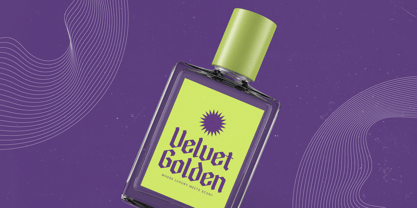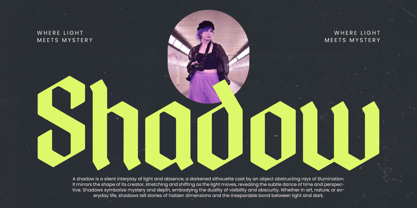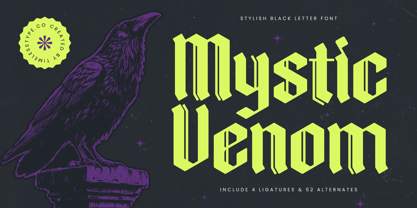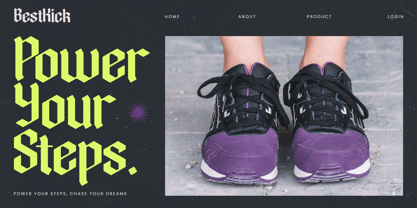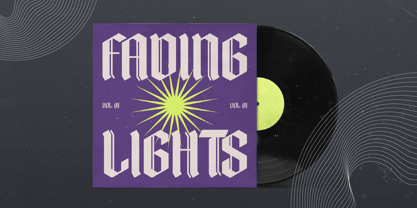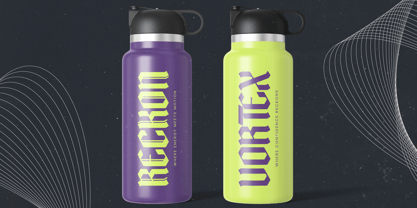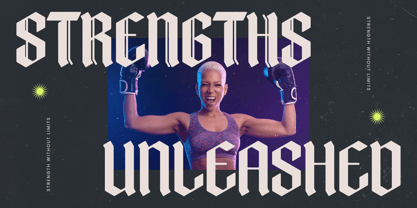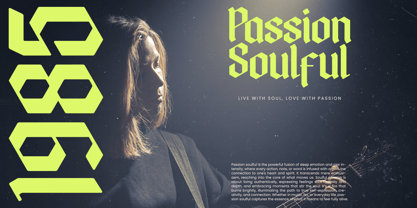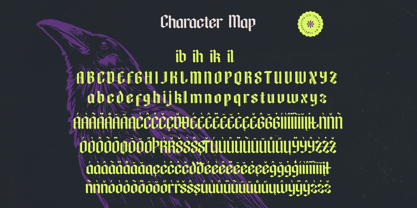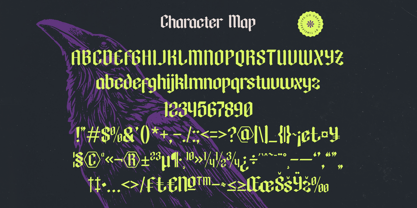
Mystic Venom
by Timelesstype Studio
The Mystic Venom Font Family was designed by Heru Utama Putra and published by Timelesstype Studio. Mystic Venom contains 2 styles and family package options. More about this family
Mystic Venom - Stylish Blackletter Font , from Timelesstype, Suitable for any projects such as: logos, branding projects, homeware designs, product packaging, mugs, quotes, posters, shopping bags, t-shirts, book covers, name card, invitation cards, greeting cards, label, photography, watermark, special events, and all your other luxury and beautiful projects that need a Luxury Serif taste.